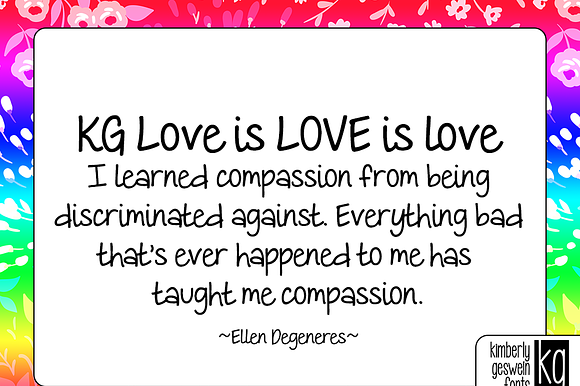
KG Love is LOVE is love
handwritten, natural handwriting
KG Love is LOVE is love by Kimberly Geswein Fonts fits naturally into Branding, posters, packaging, typography.